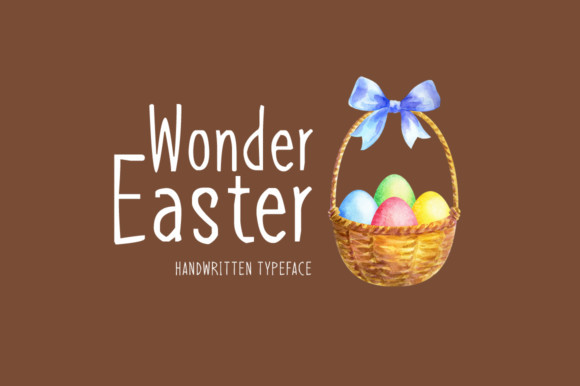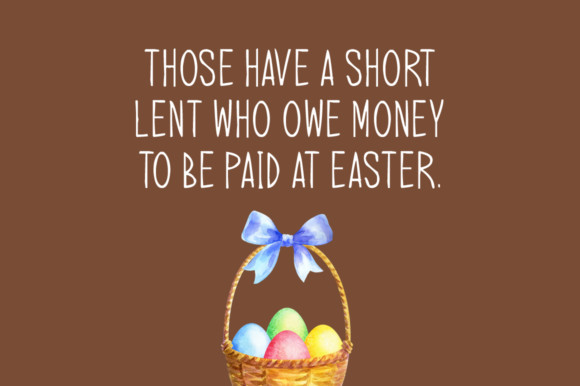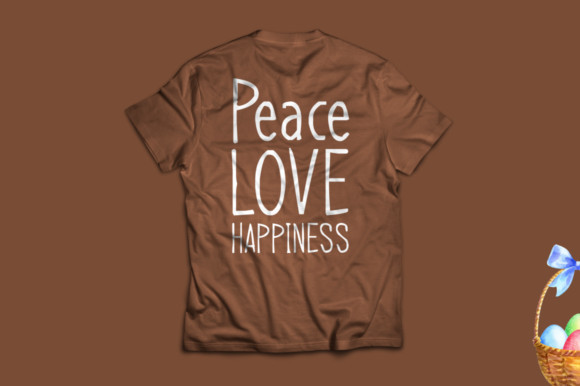
Wonder Easter is a cool looking handwritten font. Wonder Easter is perfectly suited for stationery, logos, t-shirt, paper, print design, website header, photo frame, flyer, music cover, poster, image slider and much more.
Wonder Easter Font